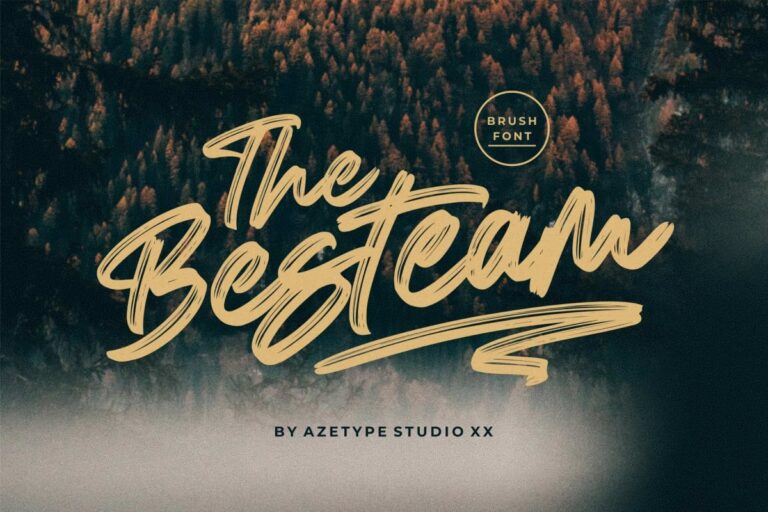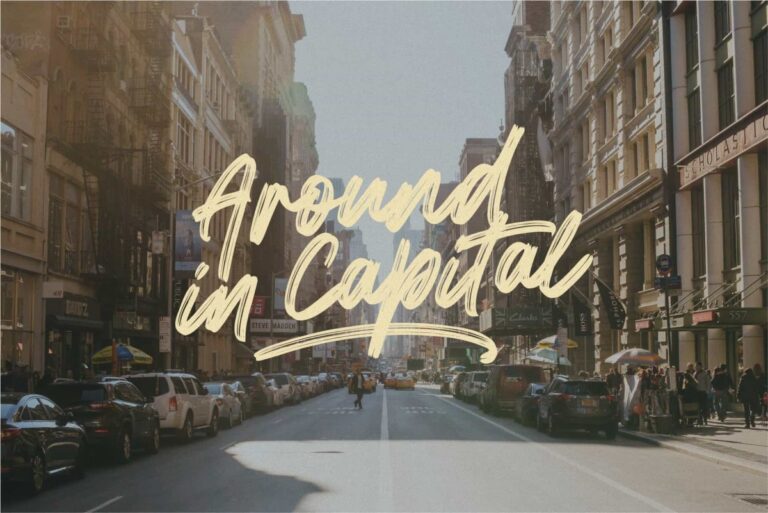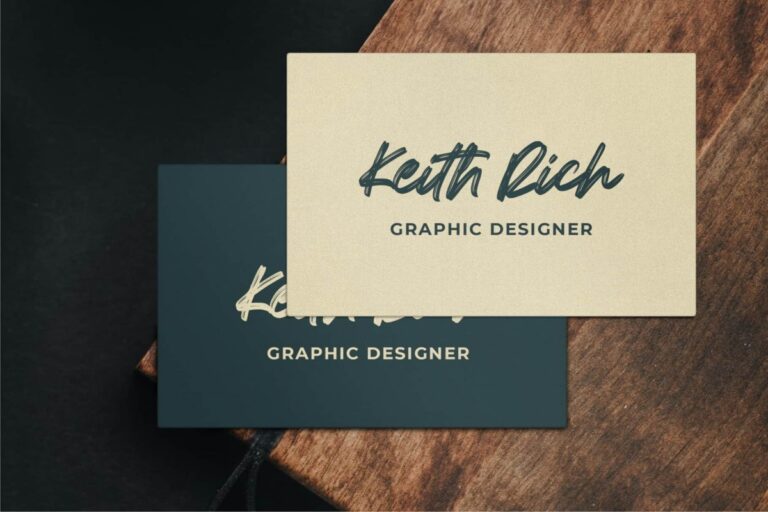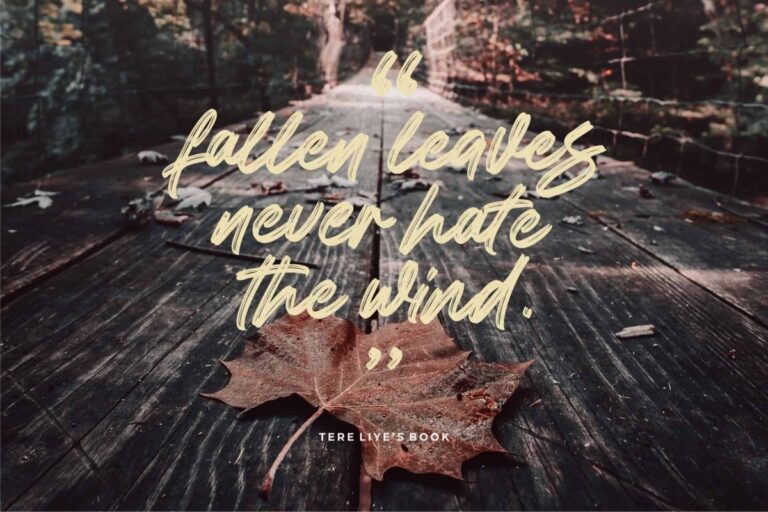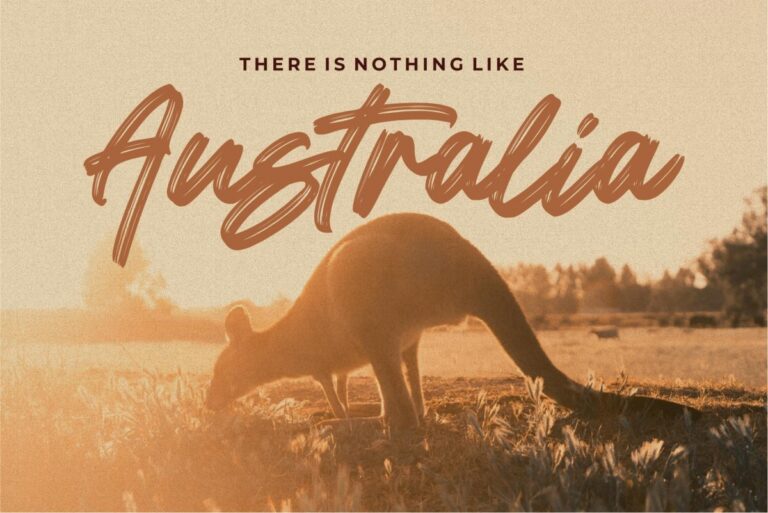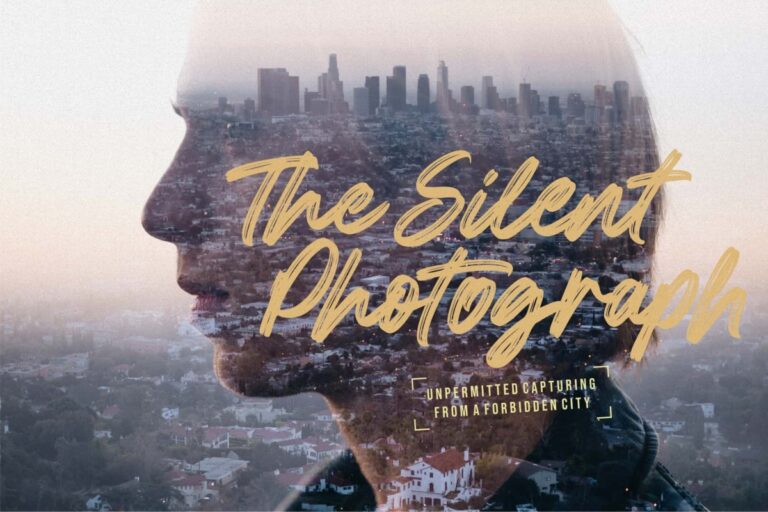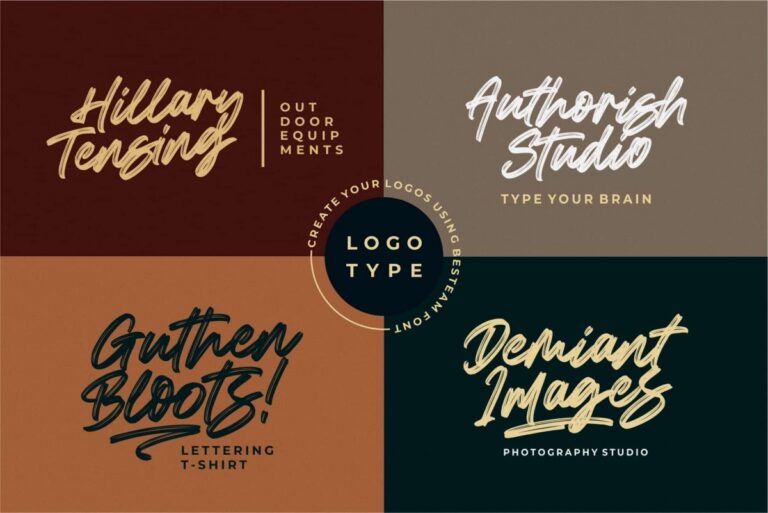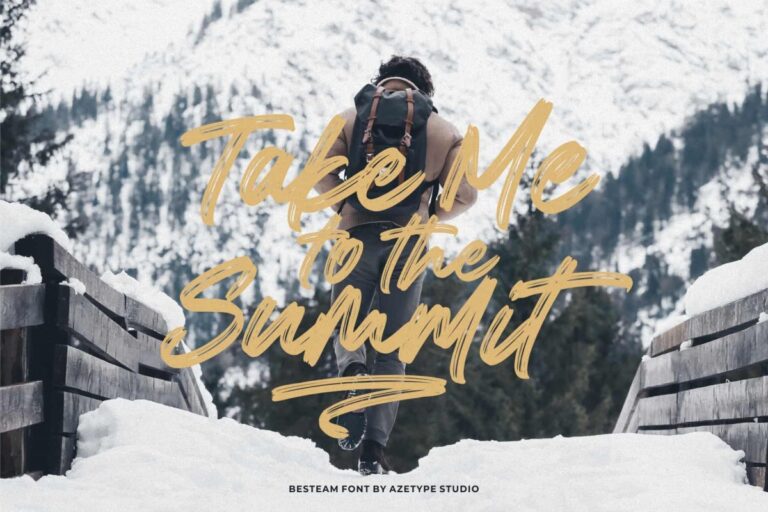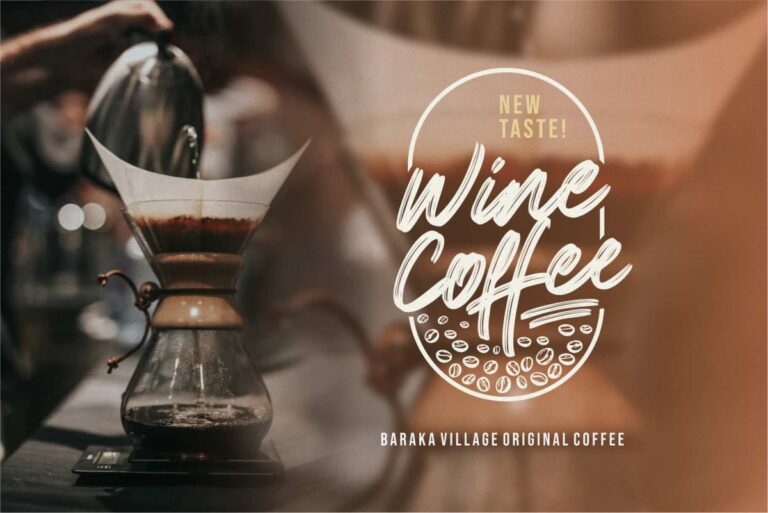
- Besteam
Presenting Besteam! A Brush Font with a stylish alternate and extra 19 swashes. This font made with the perfect combining of each character. You can type by Mix & Match with alternate version to get a unique combining. It looks original and can be used for all your project needs. Each glyph has its own uniqueness and when meeting with others will provide dynamic and pleasing proximity. This font can be used at any time and any project. You can see in the presentation picture above, Besteam looks stylish on design projects.
So, Besteam can’t wait to give its touch to all your design projects such as quotes, poster design, personal branding, promotional materials, logotype, product packaging, etc.
Besides that, Besteam also has some ligature that gives a surprise when you type certain characters combining. The ligatures are ee, ff, ii, nn, oo, rr, ss, tt, and yy.